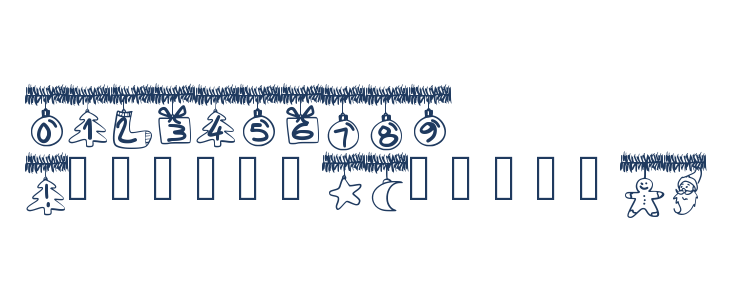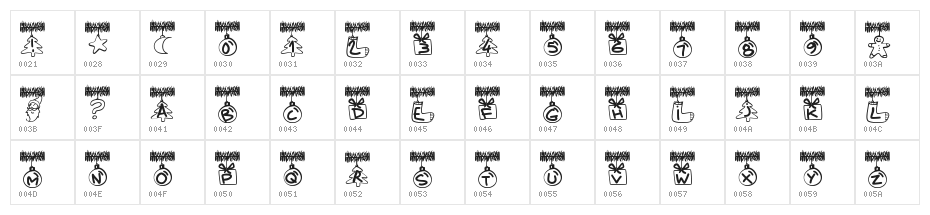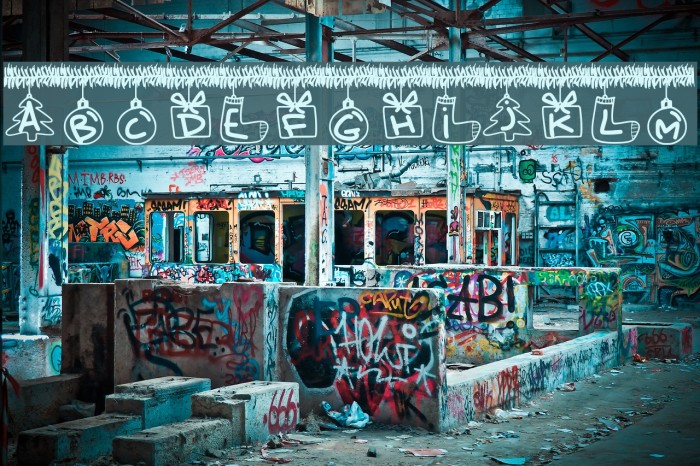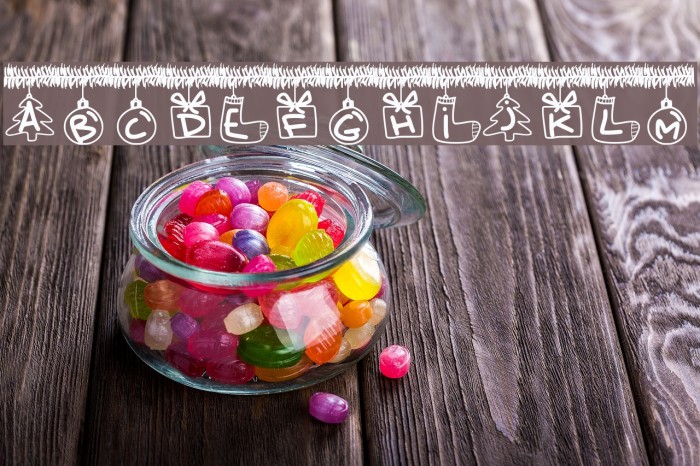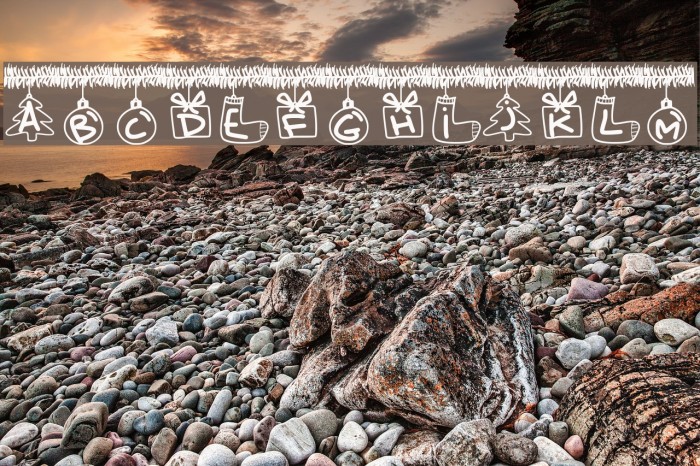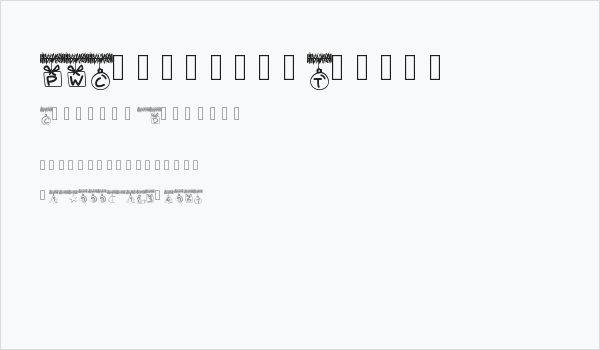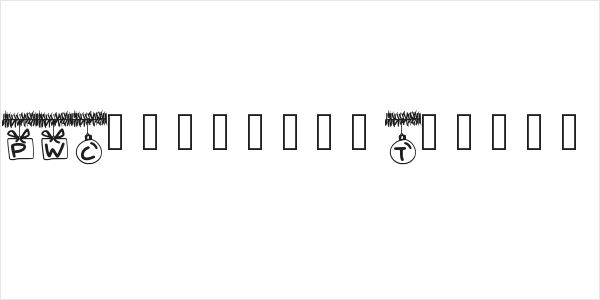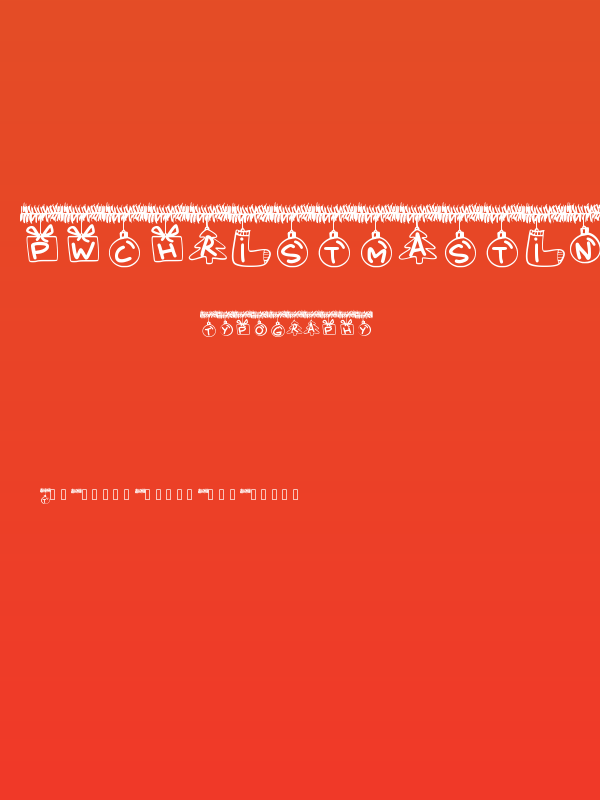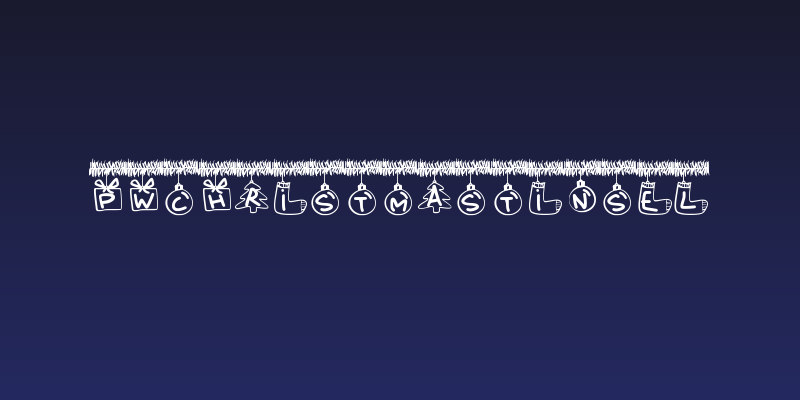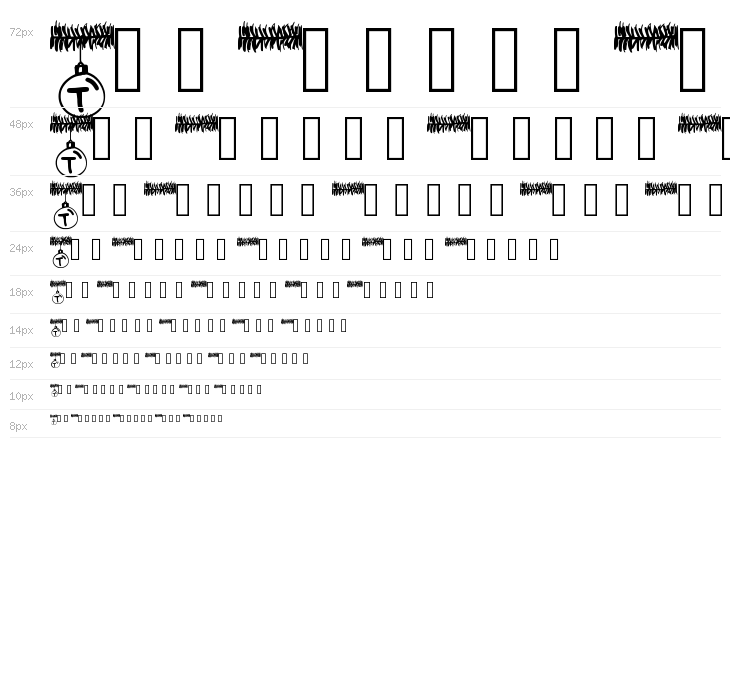
PWChristmasTinsel Font
This whimsical and festive font features characters adorned with Christmas-themed decorations. Each letter and number is creatively integrated into holiday ornaments, stockings, and trees, giving a playful and cheerful vibe. The design is highly decorative, with elements like bows and tinsel adding to the festive spirit. The characters are enclosed in various shapes such as circles and squares, enhancing the ornamental feel. This font is perfect for holiday-themed projects, bringing a sense of joy and celebration to any design.
| Proposed Projects | Ideal for holiday cards, festive invitations, Christmas-themed posters, and seasonal marketing materials. |